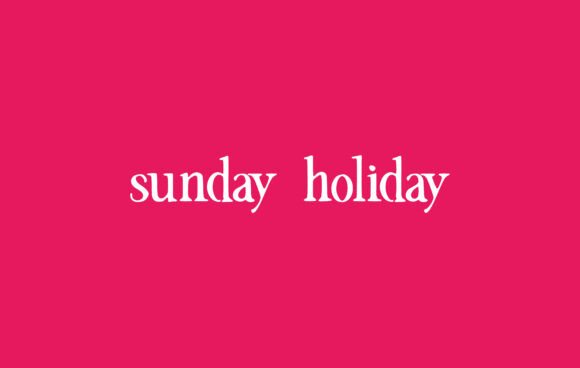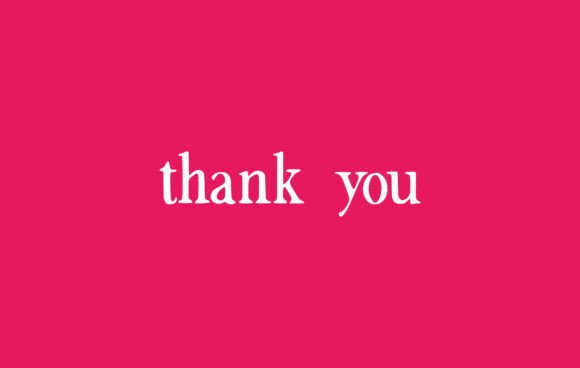
Introduction to Sand Eel Font
Sand Eel font is an authentic handwritten font with a romantic touch.
Key Features of Sand Eel Font
Why Choose Sand Eel Font?
Sand Eel Font offers exceptional quality and versatility, making it a valuable addition to your design toolkit. Whether you’re creating for personal projects or commercial use, Sand Eel Font delivers professional results.